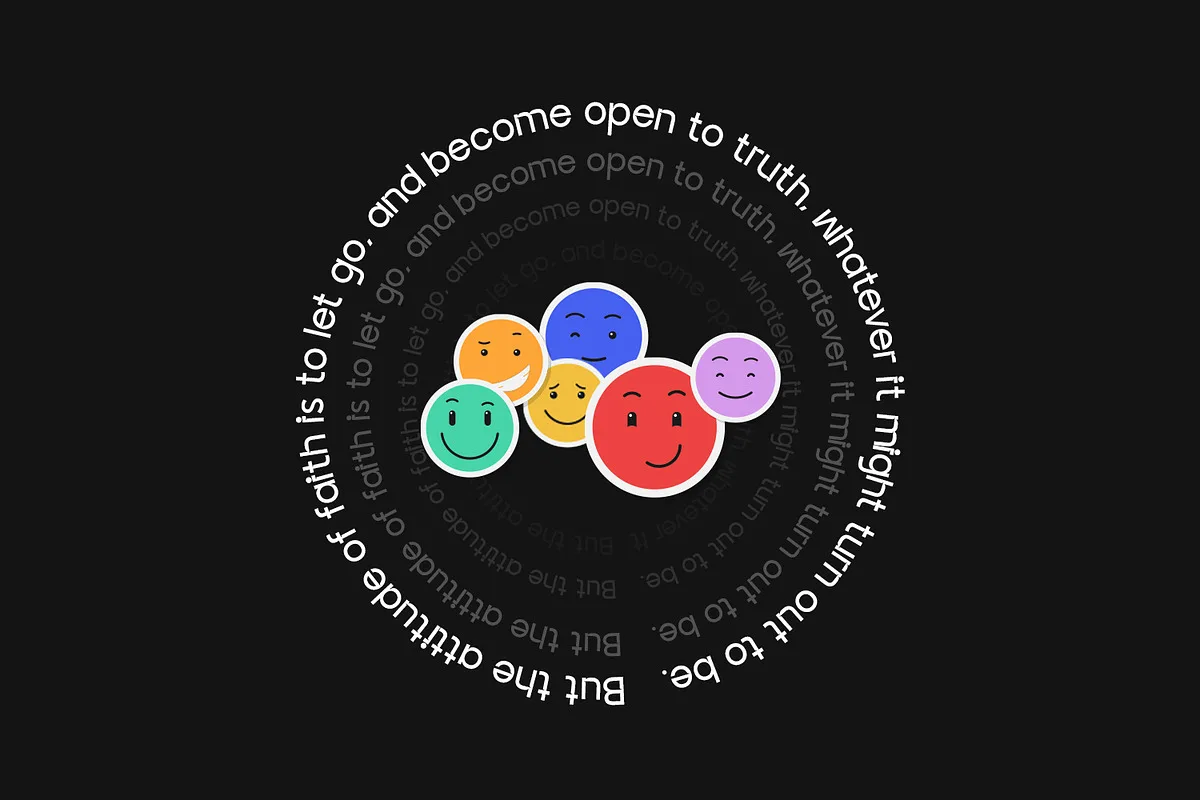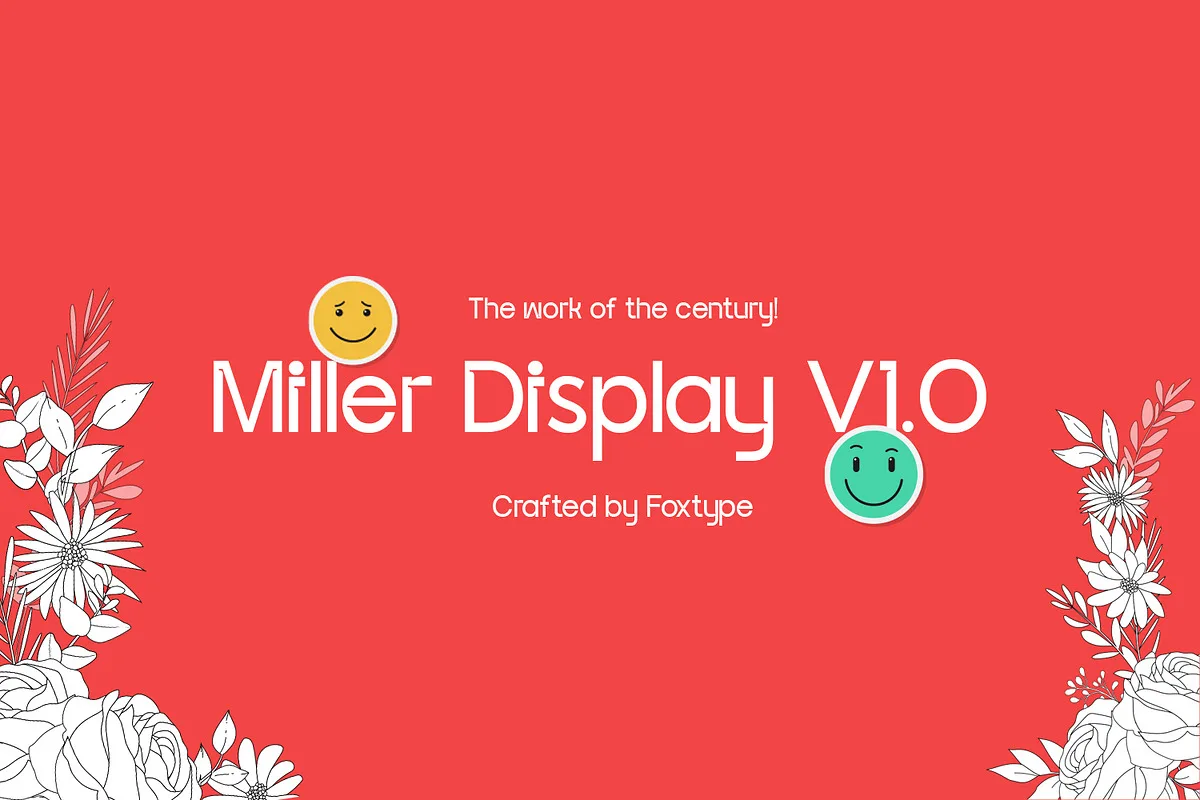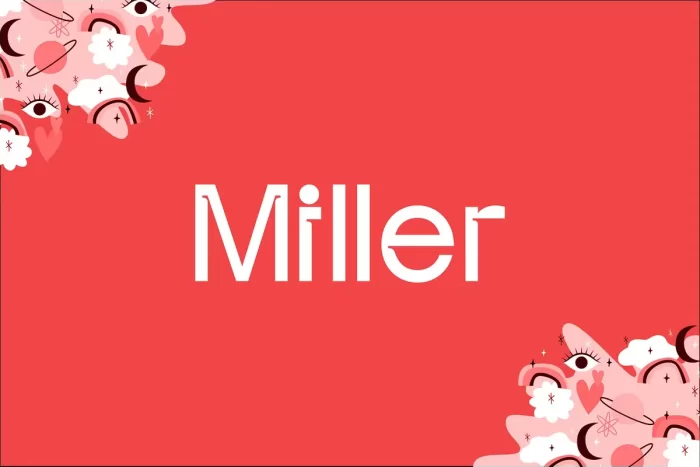
Introducing Miller Display new generation Decorative Typeface. Miller Typeface created with the vision of to attract the audience to your brand. The finest details of this typeface are methodically and mathematically created. Miller is created with all the tasks of a corporate font and also for the usage in a variety of projects, including branding, logos, titles, headlines, posters, screens, display, digital ads, and everything else.